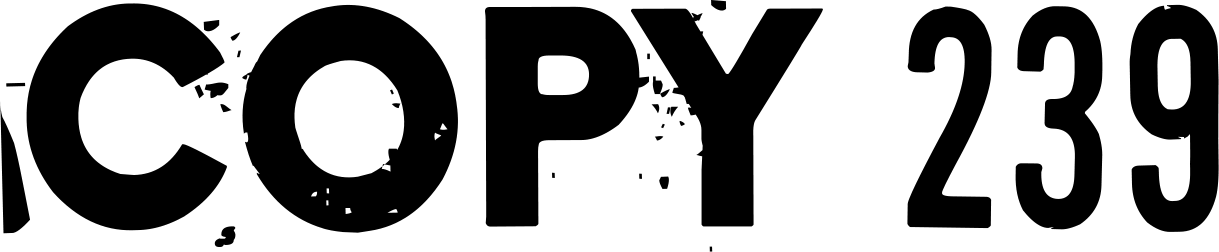
Copy 239 Font
Are you hunting for a destroy font for your text layouts? We’ve got you covered. Copy 239 is coming with bold characters and works faultlessly for movies, posters, apparel, and other similar projects. Keep in mind that this case doesn’t include lowercase letters. If you haven’t lately checked RB, do it right away and use the other cherry-picked destroy fonts.